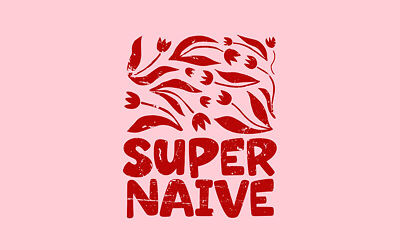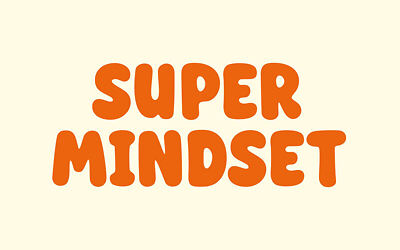
Super Plants is a bold and playful cartoon font that radiates joy and cheerfulness with every stroke. It’s perfect for designs that want to convey a sense of lightheartedness and carefree spirit.
Whether you’re crafting adorable greeting cards, children’s book illustrations, or branding materials that demand a dose of cheerful charm, Super Plants font adds a burst of happiness and a dash of whimsy to every letter.